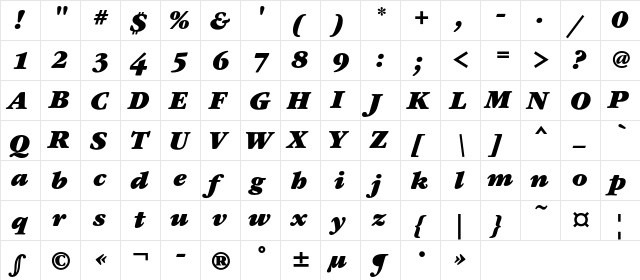
GaramondBookC Bold Italic Font Preview
Design Context for GaramondBookC Typeface
GaramondBookC takes a measured approach to typography — its balanced proportions and neutral character make it a reliable workhorse for both digital and print work. The slanted form adds forward momentum and visual energy. Its bold stroke weight gives it real presence on the page.
Pro Tip: Try GaramondBookC for annotation and caption copy alongside an upright companion — the contrast in angle creates a dynamic but ordered typographic system.